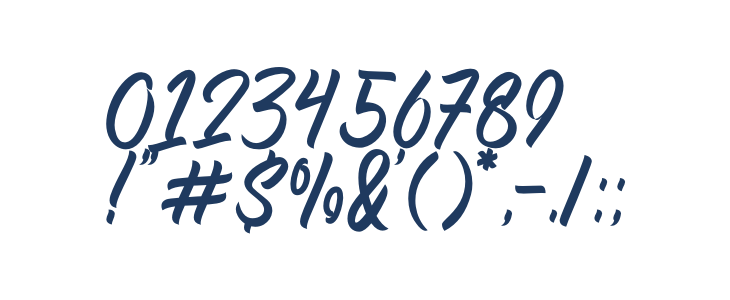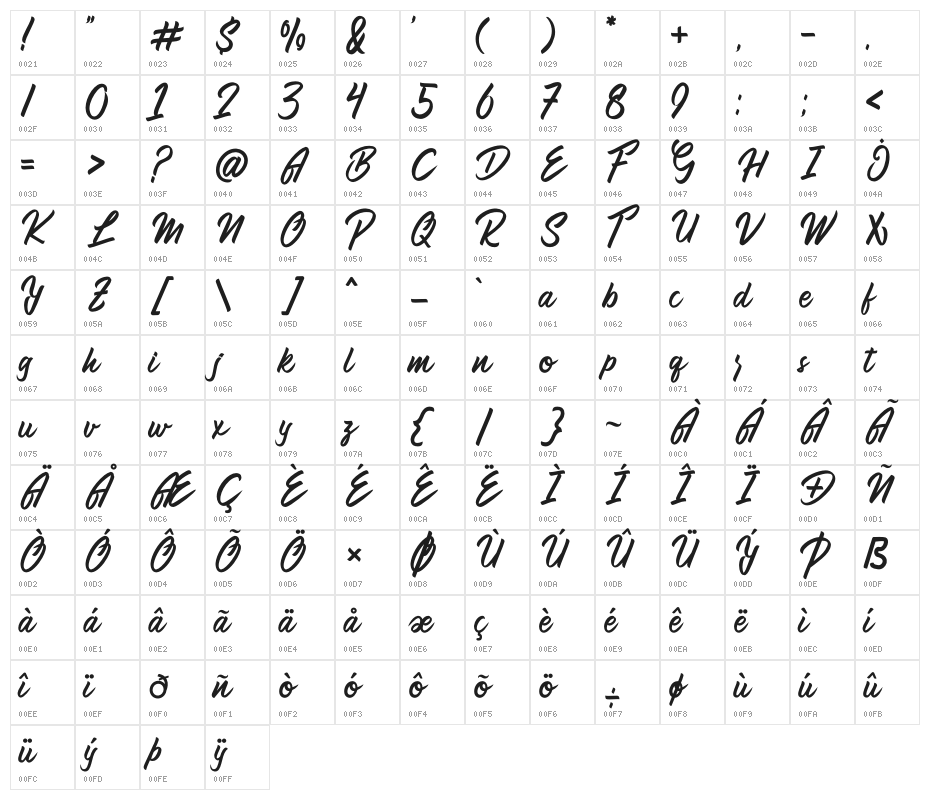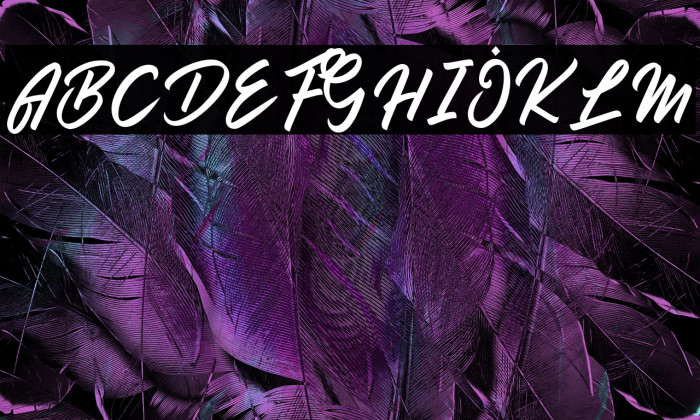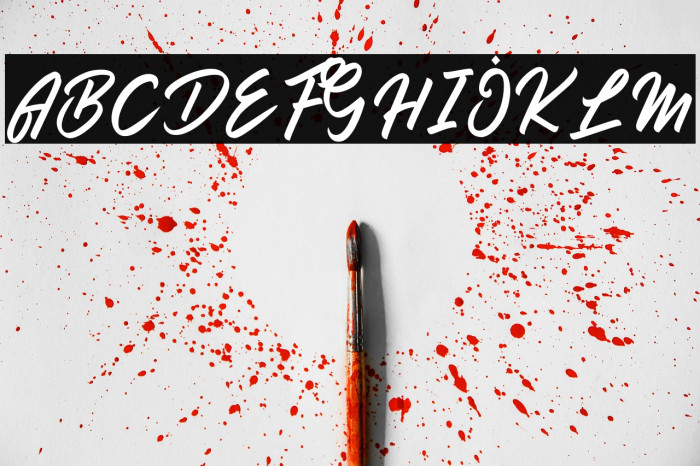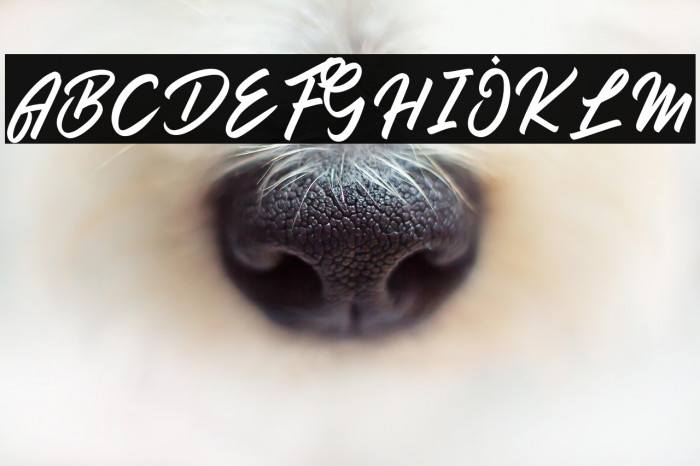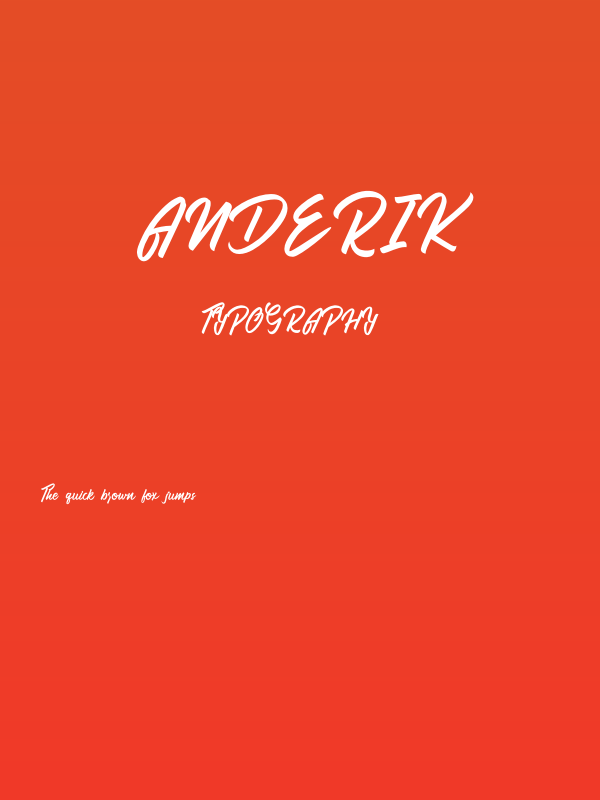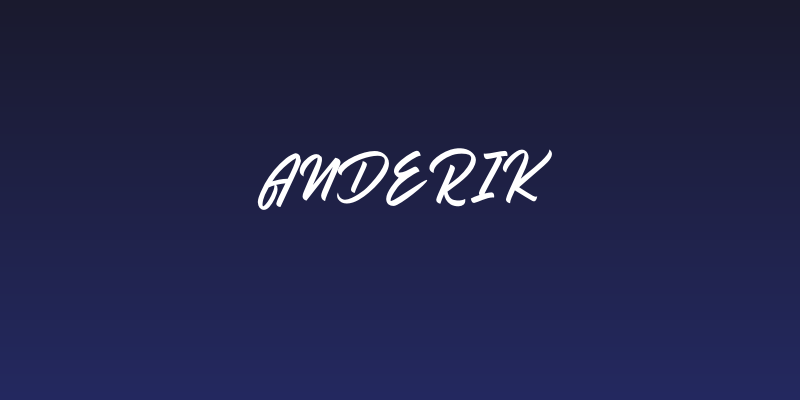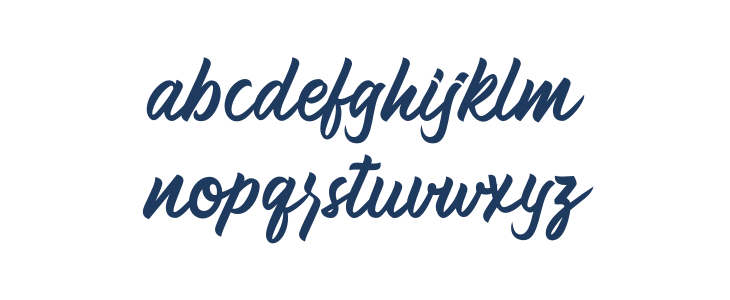
Anderik Font
Anderik Description
This font features a dynamic and fluid script style, characterized by its elegant, flowing strokes and cursive letterforms. The uppercase letters exhibit a graceful slant, with smooth connections between characters, creating a sense of movement and sophistication. The lowercase letters maintain a consistent rhythm, enhancing readability while preserving the font's artistic flair. Numbers and special characters are designed with the same attention to detail, ensuring a cohesive appearance across all text elements. The overall design is both stylish and versatile, suitable for a variety of creative applications.